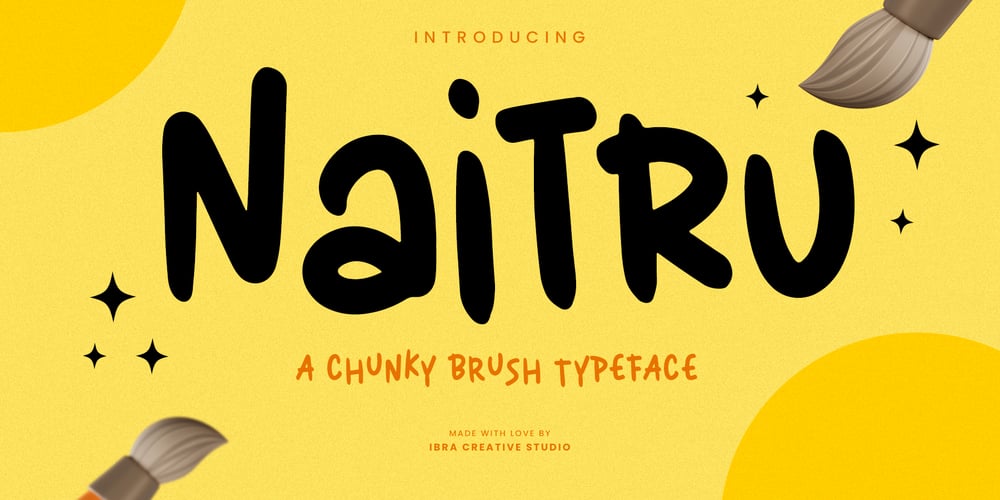
Naitru Font Family was designed by Roisatul Azizah and published by IbraCreative. Naitru contains 1 styles and family package options. Naitru – A Chunky Brush TypefaceNaitru, a chunky brush typeface, makes a bold statement with its robust and expressive strokes, capturing the raw energy of hand-painted lettering. Each character bears the distinctive mark of a wide brush, embodying a tactile and organic quality that adds depth and character to any design. Naitru’s chunky and dynamic appearance lends itself seamlessly to eye-catching headlines, impactful branding, and creative projects where a touch of boldness and authenticity is desired. The typeface invites designers to explore the realm of textured and substantial typography, creating a visual experience that resonates with a sense of bold individuality and artistic flair. Naitru is perfect for branding projects, logo, wedding designs, social media posts, advertisements, product packaging, product designs, label, photography, watermark, invitation, stationery, game, fashion and any projects.Fonts include multilingual support for; Afrikaans, Albanian, Czech, Danish, Dutch, English, Estonian, Finnish, French, German, Hungarian, Italian, Latvian, Lithuanian, Norwegian, Polish, Portuguese, Slovak, Slovenian, Spanish, Swedish.